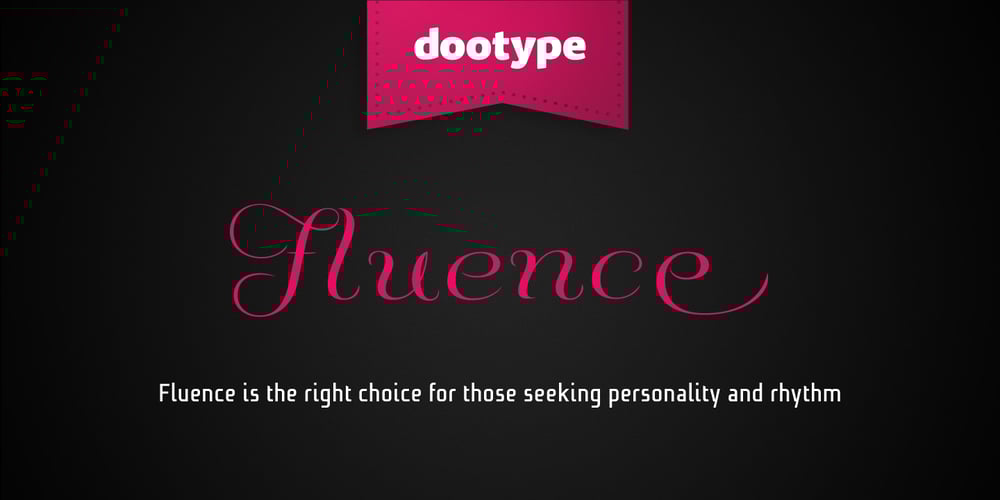
Fluence
Fluence font
Fluence Font Family was designed by Eduilson Wessler Coan and published by dooType. Fluence contains 3 styles and family package options. Fluence is a calligraphic typeface designed by dooType. With generous proportions, rounded forms and outstanding endings, Fluence is the right choice for those seeking personality and rhythm. Available in three different weights, contains 15 ligatures, 26 swashes and multilingual support to over 30 languages. Enjoy it.